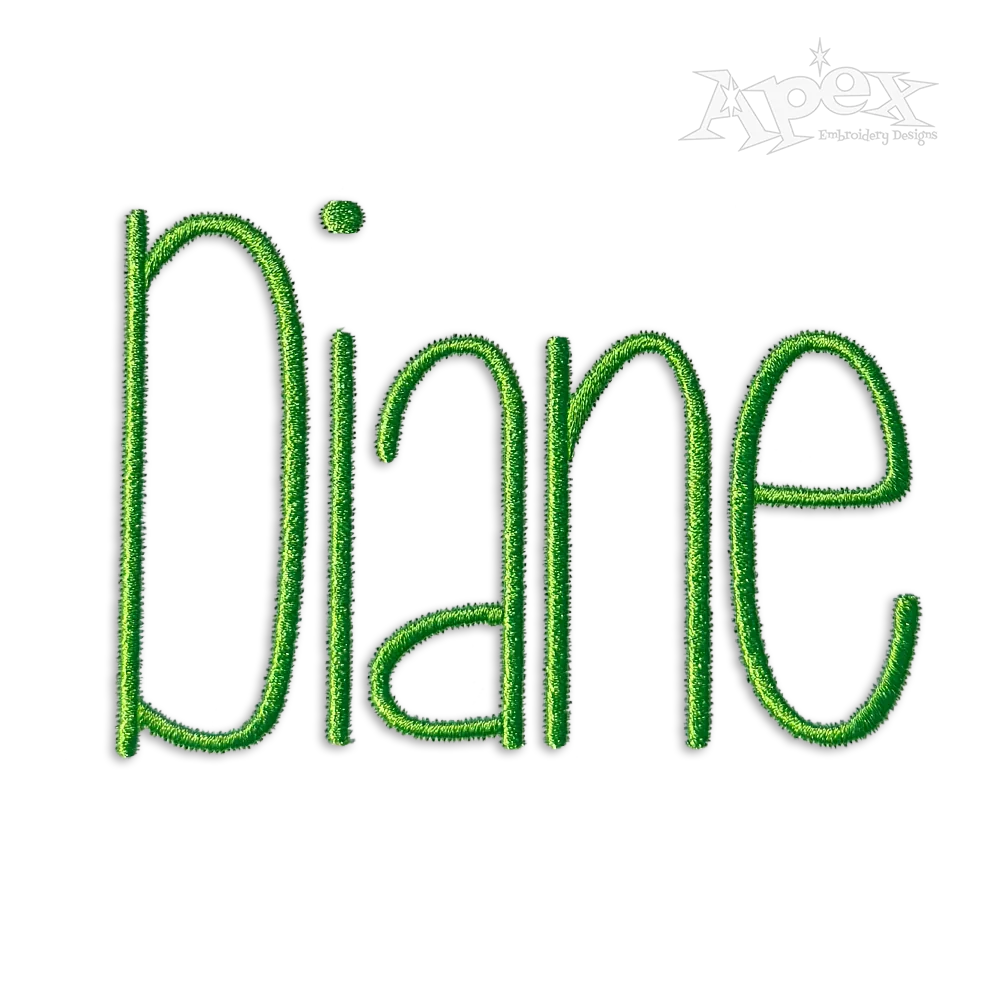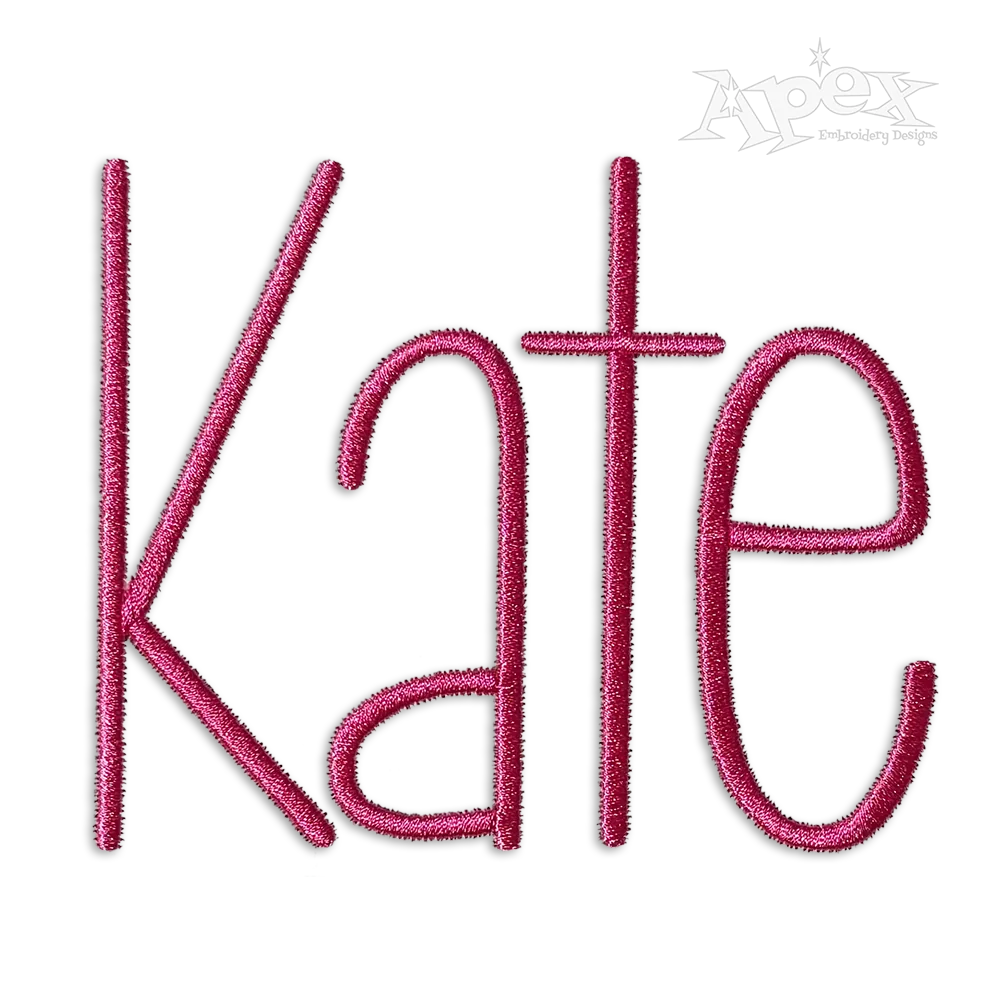
Call Me Maybe Embroidery Font
Conceived at the intersection of modern runway typography and architectural minimalism, Call Me Maybe is a love letter to slender, elongated silhouettes. We digitized this typeface to breathe a sense of playful refinement and statuesque grace into contemporary embroidery. Each letterform stretches toward the sun with an airy lightness, letting lustrous thread glide in unbroken columns that catch the ambient light. It brings an effortless, high-fashion attitude to personalized gifting, turning simple monograms and curated phrases into striking graphic poetry on fine textiles.
Project Ideas for Call Me Maybe
The lithe, slender geometry of Call Me Maybe offers unmatched versatility across upscale home decor and fashion projects:
- Luxury Table Linens: Stitch crisp initials onto hemstitched linen cocktail napkins or create an elongated table runner monogram for modern entertaining.
- Bespoke Resort Wear: Embroider full names or breezy words down the placket of a linen beach cover-up or across the brim of a woven sun hat.
- Bridal & Loungewear: Personalize silken bridal party robes or pajama cuffs with delicate, elongated vertical names for unforgettable wedding morning keepsakes.
- Heirloom Bedding: Frame duvet covers and flange-edge pillow shams with modern three-letter monograms that whisper understated luxury.
- Canvas Totes & Weekend Bags: Create dramatic, graphic statements by stacking tall lettering along the side seams or across the center front of heavy cotton canvas bags.
Call Me Maybe’s elongated vertical axis introduces unique design possibilities that traditional block or script alphabets cannot match:
- Vertical Runs: The slim letter widths make this font breathtaking when stitched vertically down a garment's side seam, along a tote strap, or beside a button placket.
- Corner Diagonals: Angle a single oversized initial or classic three-letter layout on the corner of napkins and tea towels for an editorial, modern presentation.
- Center Chest & Yoke: Take advantage of the 4-inch and 5-inch sets across the upper back yoke of denim jackets or the center chest of minimalist sweatshirts for a clean, boutique look.
- Cuffs and Hemlines: Use the 3-inch set along sleeve cuffs or running parallel to trouser hems for an unexpected whisper of bespoke tailoring.
Call Me Maybe Craft & Letterform Details
Digitizing an ultra-skinny satin stitch alphabet requires an intimate understanding of fabric physics, thread tension, and needle dynamics. Because the columns are deliberately slender, conventional digitizing risks thread puckering or frail, sunken stitches. To prevent this, every stroke in Call Me Maybe is mapped with customized push-and-pull compensation, supporting the extended vertical reaches while maintaining clean, razor-sharp edges.
The stitch pathing moves with continuous, deliberate rhythm. Graceful curves on letters like 'S', 'B', and 'C' flow seamlessly into sky-high vertical stems without abrupt angle shifts, preserving the unbroken sheen of your embroidery thread. By keeping the density rich yet light-handed, the embroidery lays flat and supple, bending naturally with fine woven textiles rather than creating a rigid badge. It is digitizing engineered to look effortless—sophisticated, statuesque, and undeniably chic.